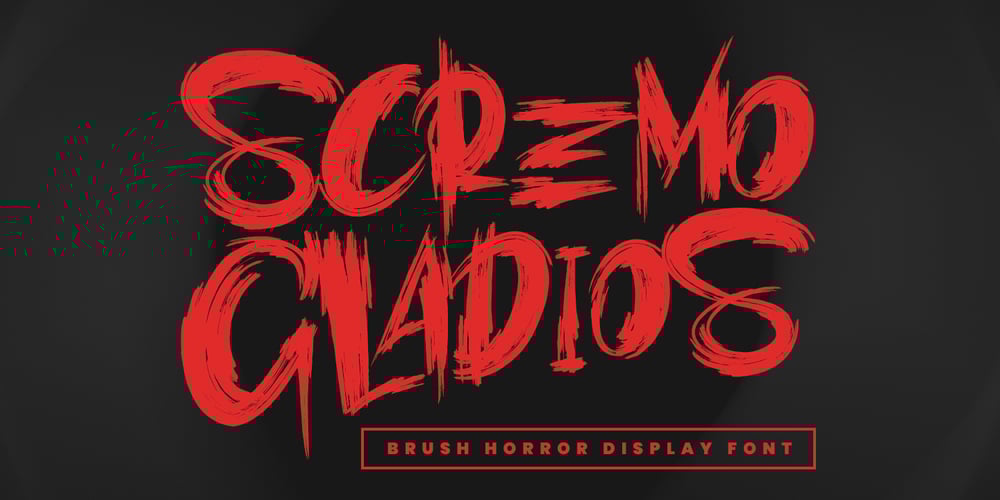
MC Scremo Gladios
MC Scremo Gladios font
MC Scremo Gladios Font Family was designed by Gilang Maulana and published by Maulana Creative. MC Scremo Gladios contains 1 styles and family package options. Give your designs an authentic brush handcrafted feel. “Scremo Gladios Brush Horor Display Font” is perfectly suited to signature, stationery, logo, typography quotes, magazine or book cover, website header, flyer, clothing, branding, packaging design and more.